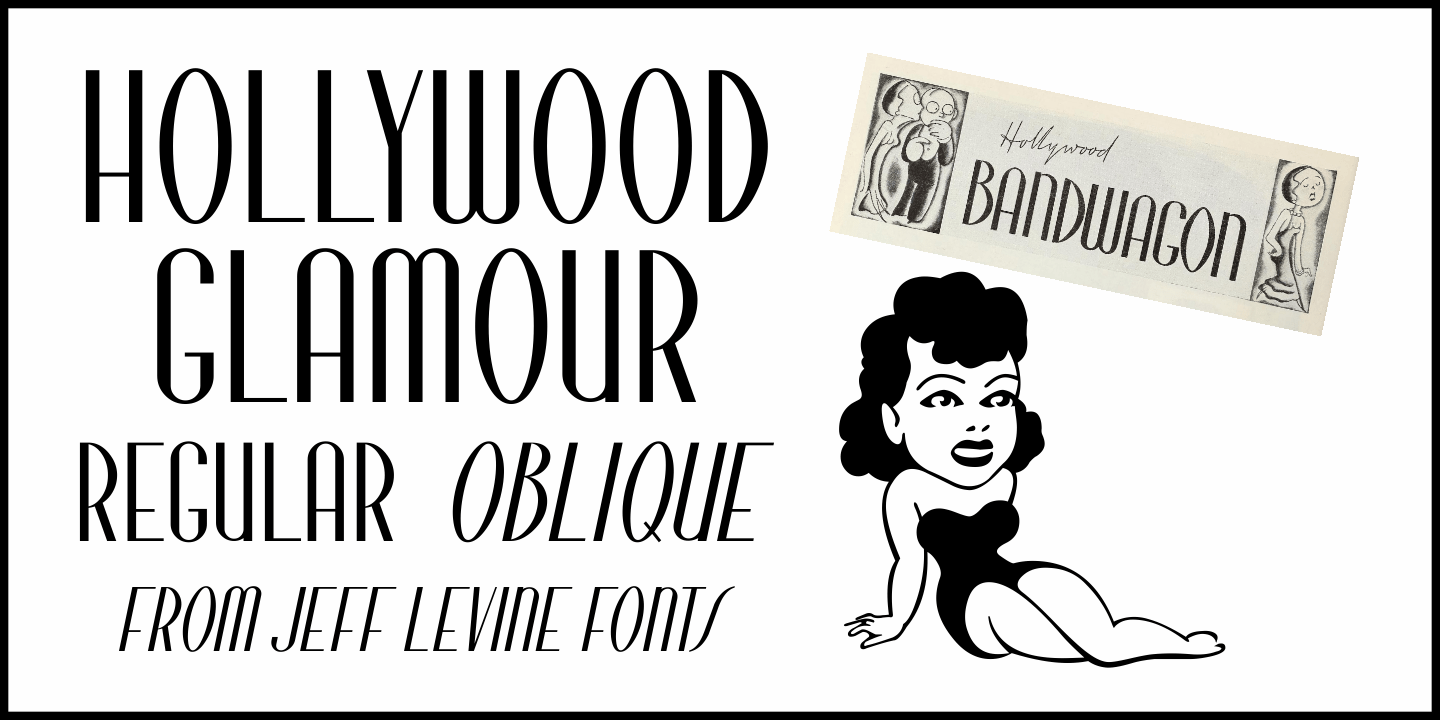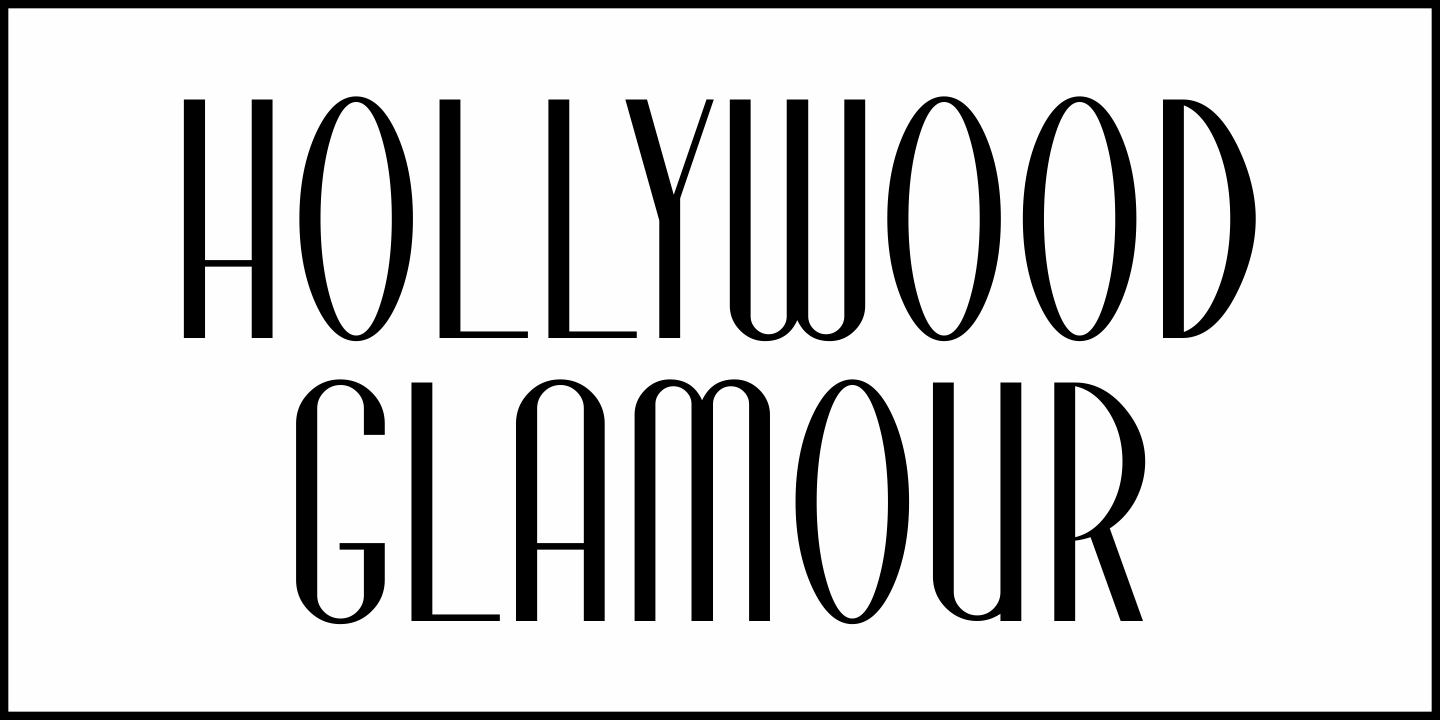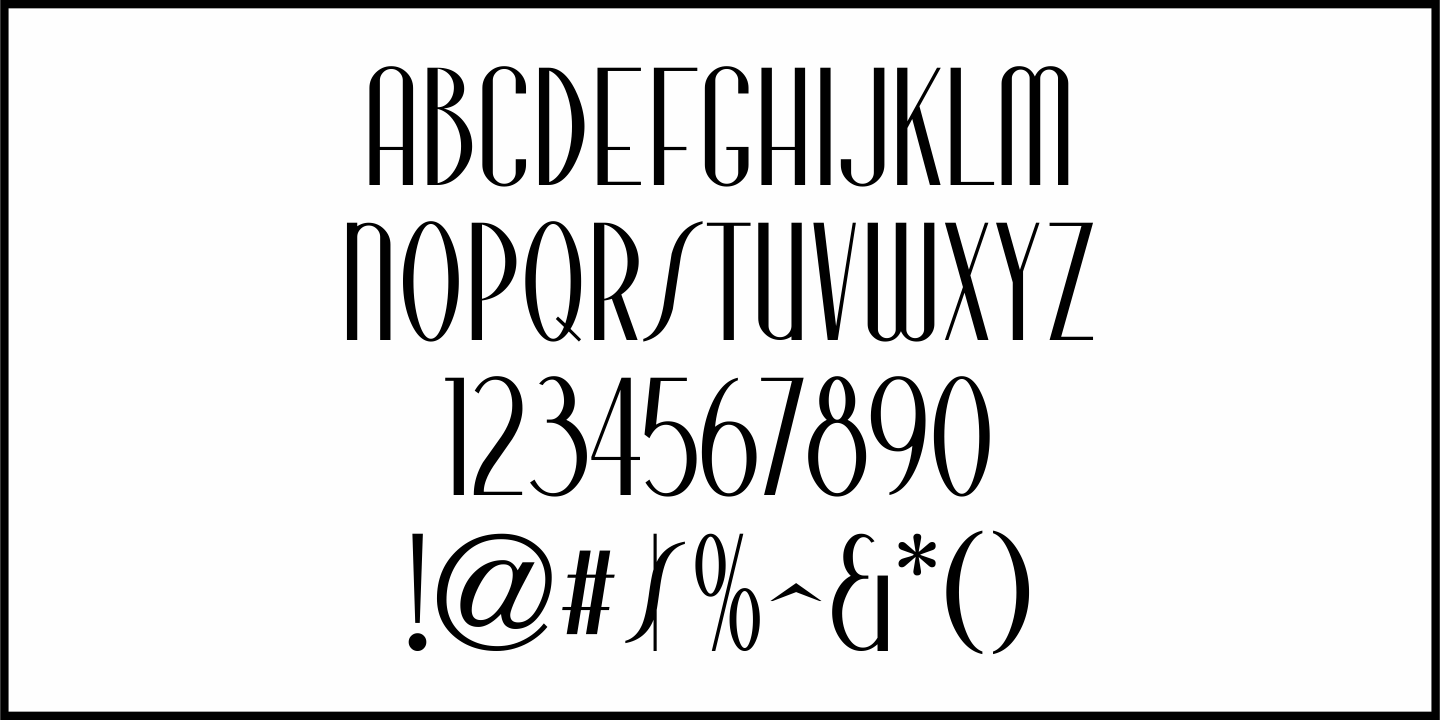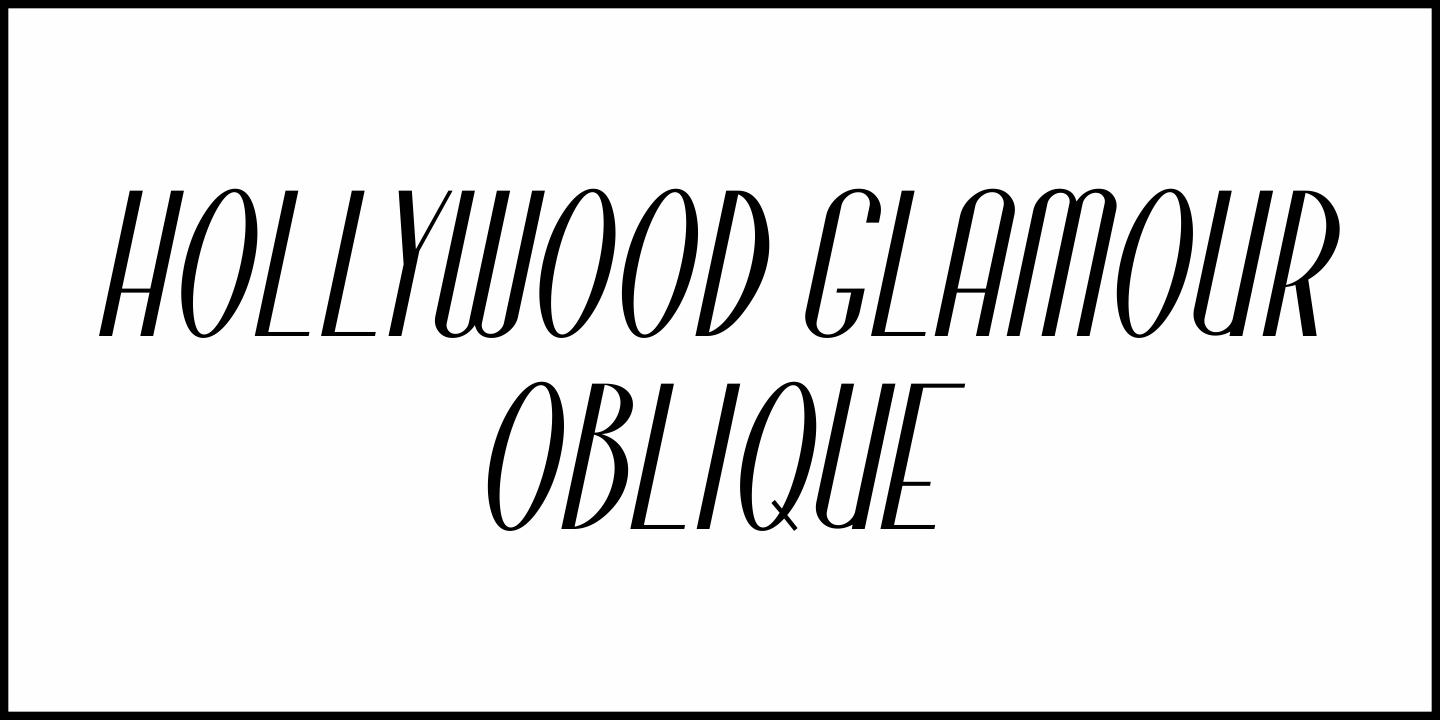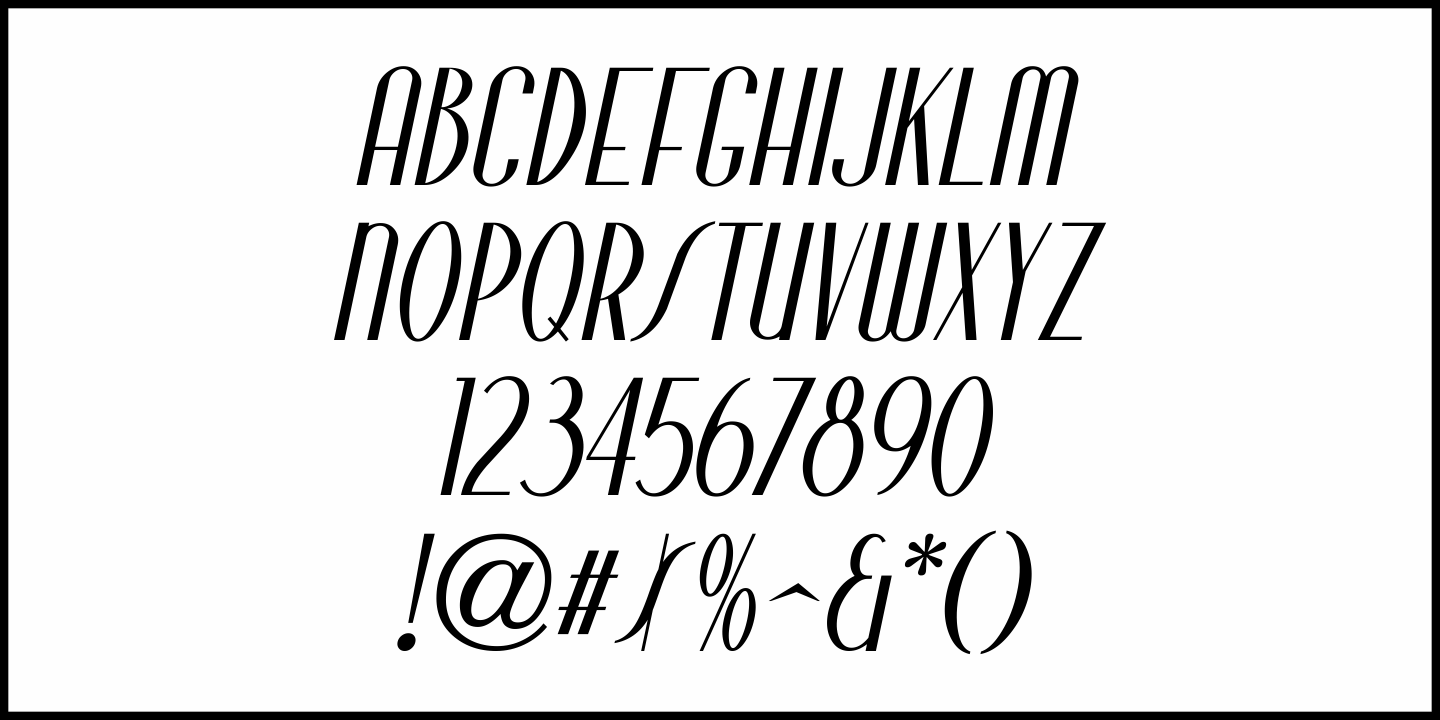
Hollywood Glamour
In the February, 1933 issue of The New Movie Magazine is a section called "Hollywood Bandwagon". The lettering for the word 'Bandwagon' was hand lettered in a condensed 'thick and thin' Art Deco type style.
This inspired Hollywood Glamour JNL, which is available in both regular and oblique versions.